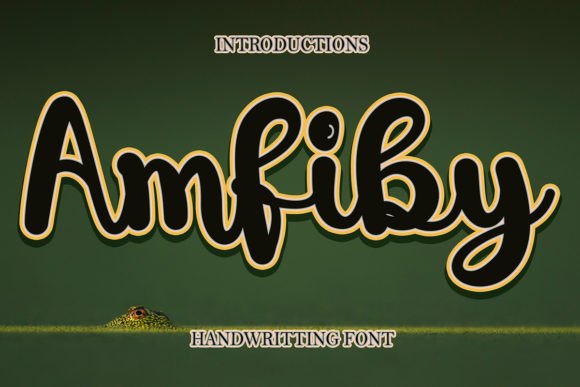
The Amfiby Font: A Sweet Addition to Your Design Arsenal
I’ll never forget the time I was working on a wedding invitation project, and my client asked for a font that was both elegant and playful. I scoured the internet, tried out dozens of fonts, but nothing seemed quite right. That was until I stumbled upon the Amfiby Font. It was like a breath of fresh air – cute, beautiful, and perfect for the job. In this article, I’ll share my experience with Amfiby, and explore its features, uses, and alternatives.
An Honest Review of Amfiby Font
So, what makes Amfiby so special? Let’s dive into the good stuff and, of course, a few quirks I’ve noticed.
- ✨ Cute and Beautiful: Amfiby is a handwritten font that exudes warmth and charm. It’s perfect for designs that require a personal touch.
- ✅ Versatile: From wedding invitations to social media posts, Amfiby can be used for a wide range of design projects.
- 🎉 Easy to Read: The font is clear and legible, making it ideal for body text and headings.
While Amfiby is an excellent font, it’s not without its limitations. Here are a few things to keep in mind:
- 🤔 Limited Character Set: Amfiby might not have an extensive character set, which could limit its use for certain languages or special characters.
- ⚠️ Not Suitable for Body Text: While readable, Amfiby is best used for headings, titles, or short paragraphs. It might not be the best choice for lengthy body text.
Alternatives to Amfiby Font
While Amfiby is a unique font, there are some alternatives that you might find useful. Here are a few:
- Sacramento: A beautiful, elegant script font perfect for formal designs, like wedding invitations and luxury branding.
- Kristi: A playful, handwritten font great for creative projects, like children’s books and social media graphics.
- Maitree: A sweet, Thai-inspired font suitable for designs that require a touch of cultural flair.
- Lobster: A classic, elegant script font ideal for formal designs, like restaurant menus and event invitations.
The Story Behind Amfiby Font
Amfiby was designed with love and care by a talented font creator. While I couldn’t find much information on the designer’s background, it’s clear that they were inspired by the beauty of handwritten letters. The result is a font that’s both elegant and playful, perfect for a wide range of design projects.
| Font Name | Amfiby Font |
| Author | ABDStudio |
Q: What type of designs is Amfiby best suited for?
A: Amfiby is perfect for designs that require a personal touch, like wedding invitations, social media posts, and stationery art.
Q: Is Amfiby a difficult font to read?
A: No, Amfiby is a relatively easy font to read, making it suitable for short paragraphs and headings.